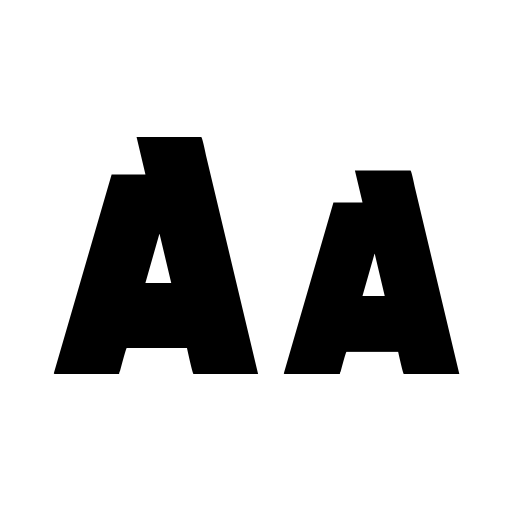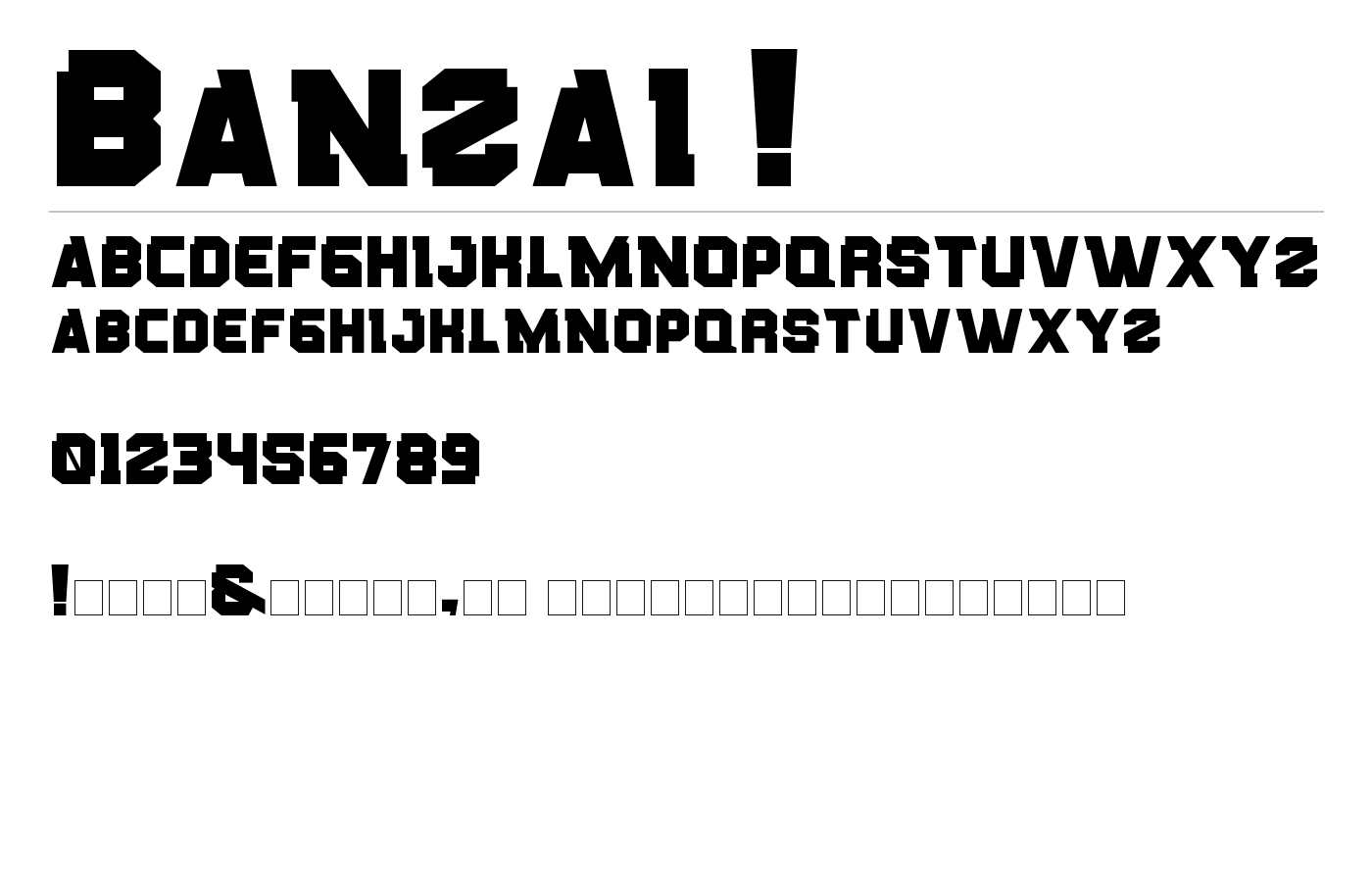
Banzai! is a bold, condensed sans serif font with strong geometric shapes and a blocky, almost stencil-like appearance. Its heavy weight, sharp corners, and high contrast strokes give it a powerful, commanding personality, ideal for attention-grabbing headlines, posters, or branding that aims to convey strength and impact. This font works best in display settings where a dramatic and modern style is needed to make a striking visual statement.
Banzai ! Font
About Banzai ! Font